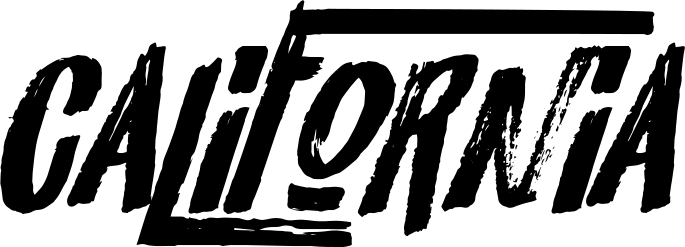
Apocalypse Grunge Font
Apocalypse Grunge is an 80s horror font with a punk and edgy vibe and a messy style. It can be used for any graffiti, channel banner, teenagery movies, flyers or album titles, and product introductions and it can be a go…
Apocalypse Grunge is an 80s horror font with a punk and edgy vibe and a messy style. It can be used for any graffiti, channel banner, teenagery movies, flyers or album titles, and product introductions and it can be a good choice if you want to have a modern headline. This 80s script font only supports capital letters.